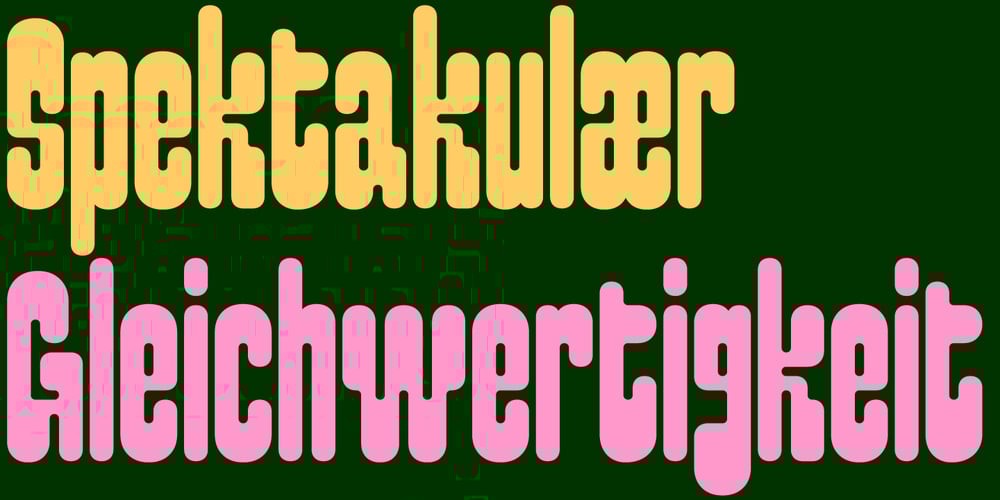
Pimpit Font Family was designed by Benoît Bodhuin and published by bb-bureau. Pimpit contains 1 styles and family package options. Pimpit is a funny rounded font, but above all it is the less athletic and amphetamine-breathing style of Pimpit’s family.